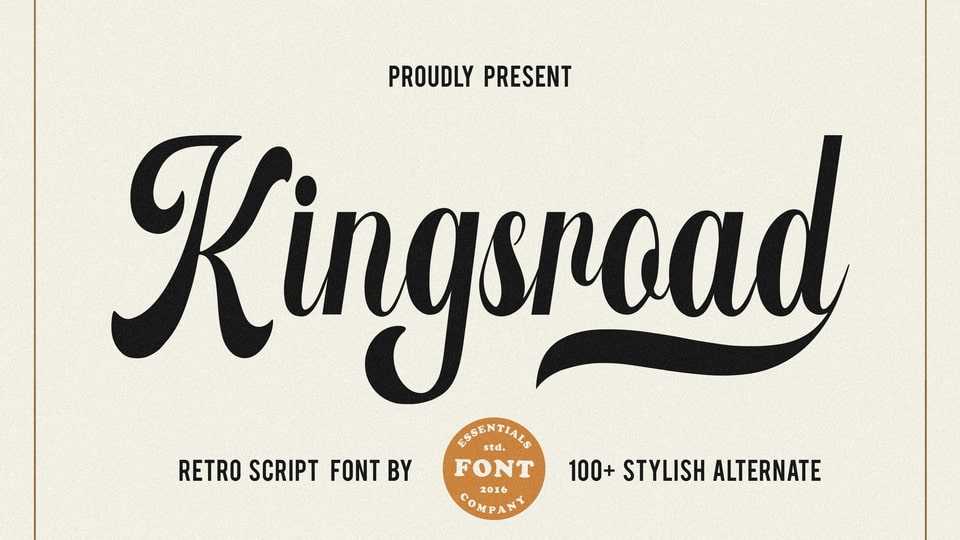
Download Kingsroad font, a modern retro script font with refined characters and beautiful alternates. Kingsroad is perfect for product packaging, branding project, magazines, social media, weddings, or just used to express words above the background.
Designer: Essentials Studio